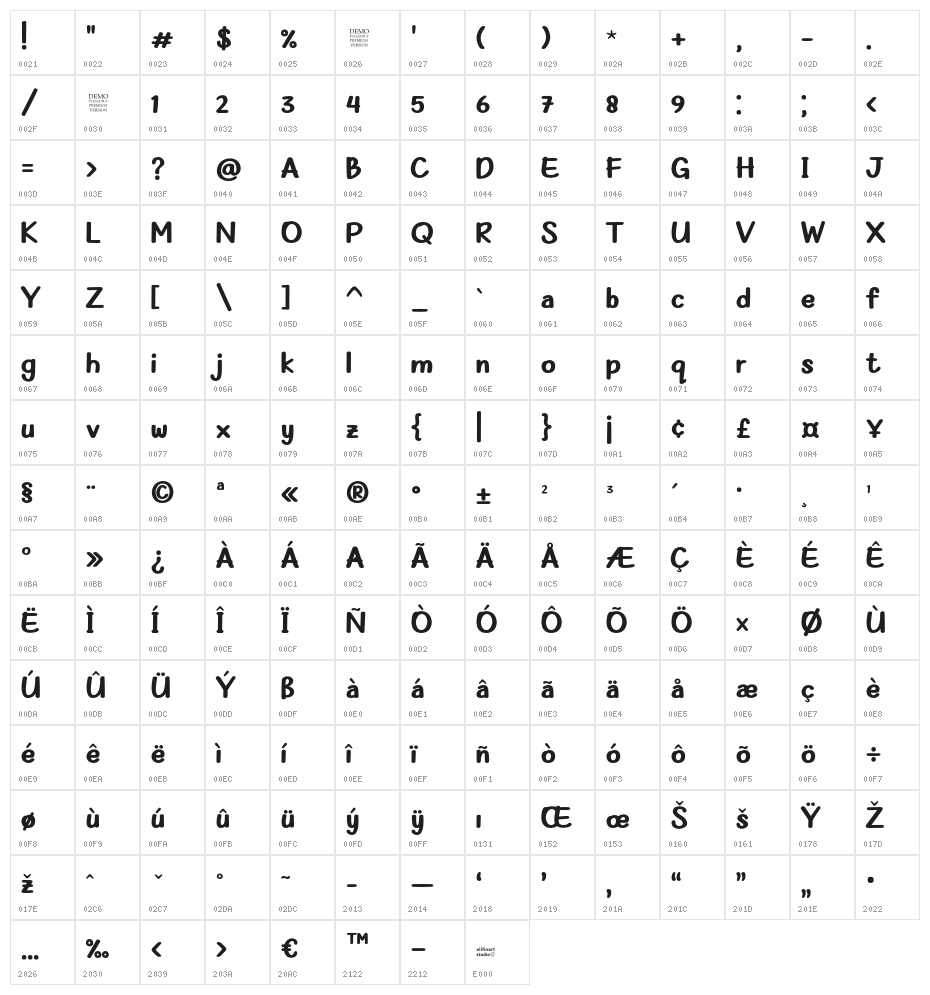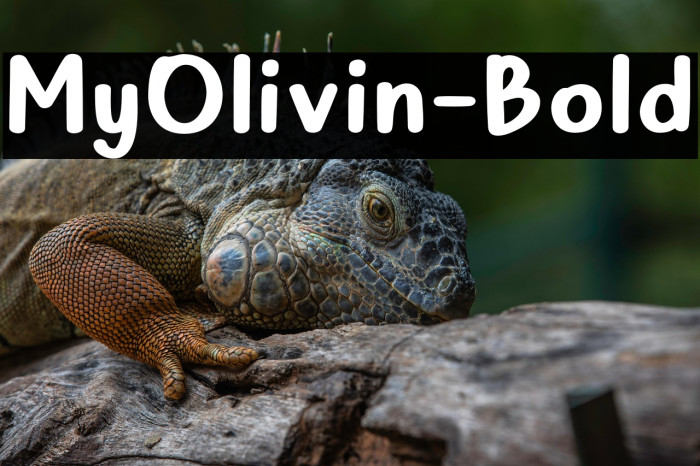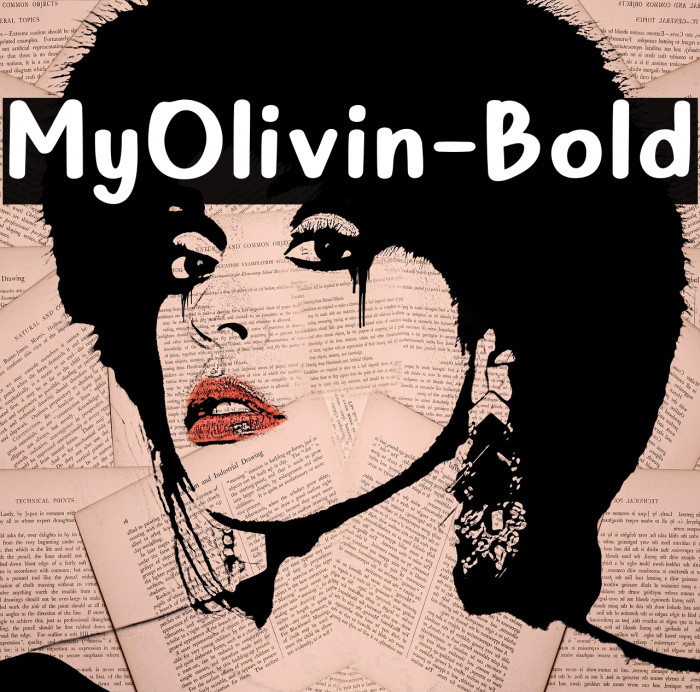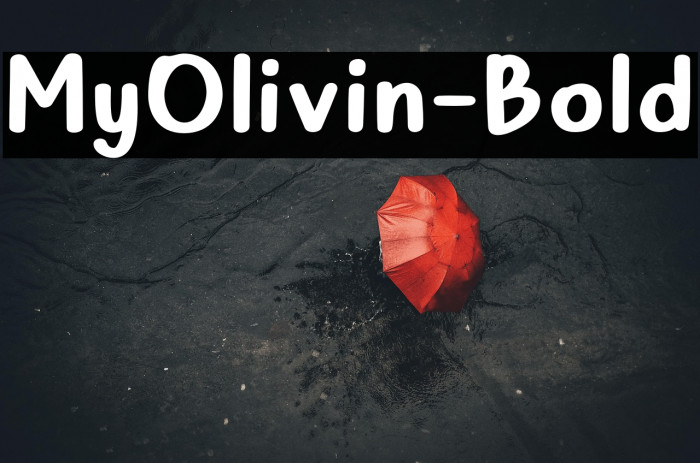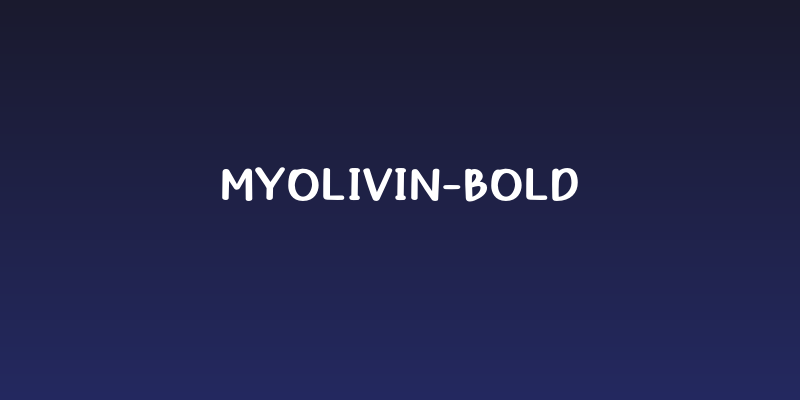
MyOlivin-Bold Font
MyOlivin-Bold Description
This font features a playful and bold style with rounded edges, giving it a friendly and approachable appearance. The characters are well-balanced with a consistent weight throughout, making it suitable for various design applications. The uppercase and lowercase letters maintain a uniform style, while the numerals and special characters complement the overall aesthetic. The font's boldness ensures readability, even at smaller sizes, while its rounded forms add a touch of whimsy and charm.
| Proposed Projects | Ideal for children's books, playful branding, casual invitations, and creative posters. |